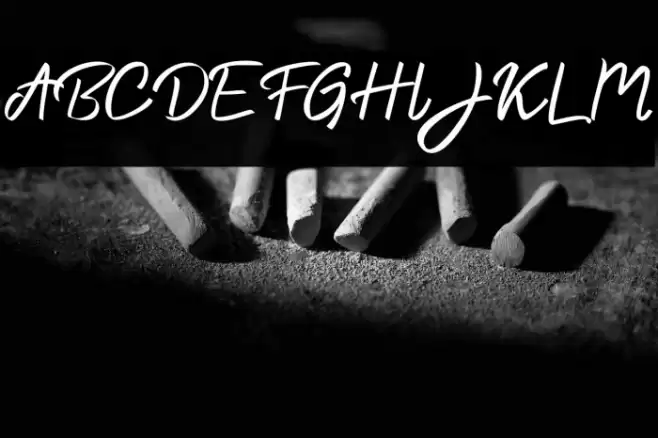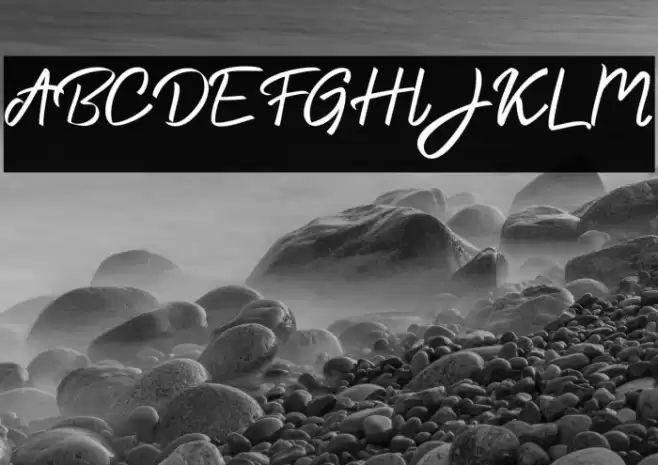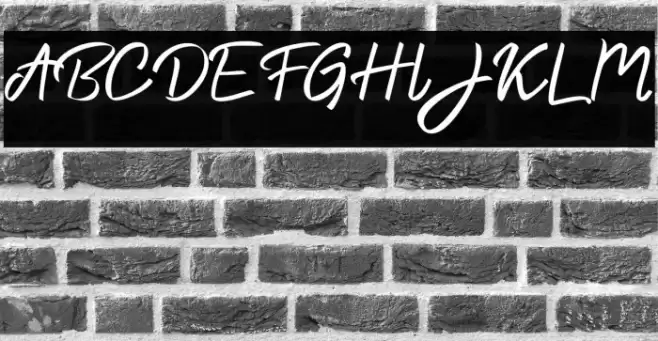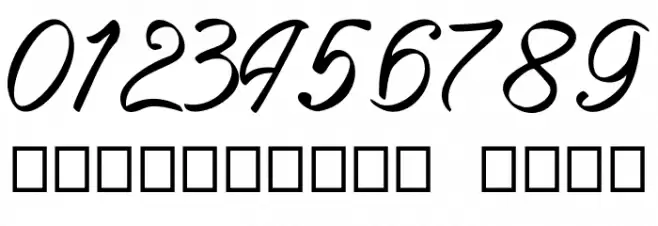
Dacilla Script Demo Font
Dacilla Script Demo Description
This font features a flowing, cursive style with elegant, sweeping strokes that mimic the fluidity of handwritten script. The uppercase letters are bold and dynamic, with a slight slant that adds a sense of motion and grace. The lowercase letters maintain a consistent style, with smooth connections between each character, enhancing readability while preserving the artistic flair. The numerals are distinct and maintain the script's overall aesthetic, ensuring they blend seamlessly with the alphabet. This font exudes a sense of sophistication and creativity, making it ideal for projects that require a personal touch.
A flowing, cursive script font with elegant, sweeping strokes from Uncategorized fonts.
- Font: Dacilla Script Demo
- Proposed Projects: Ideal for wedding invitations, greeting cards, branding, and logo design.
- Overall Style: Elegant and Artistic
- Use Case: Logos, Invitations, Decorative Text